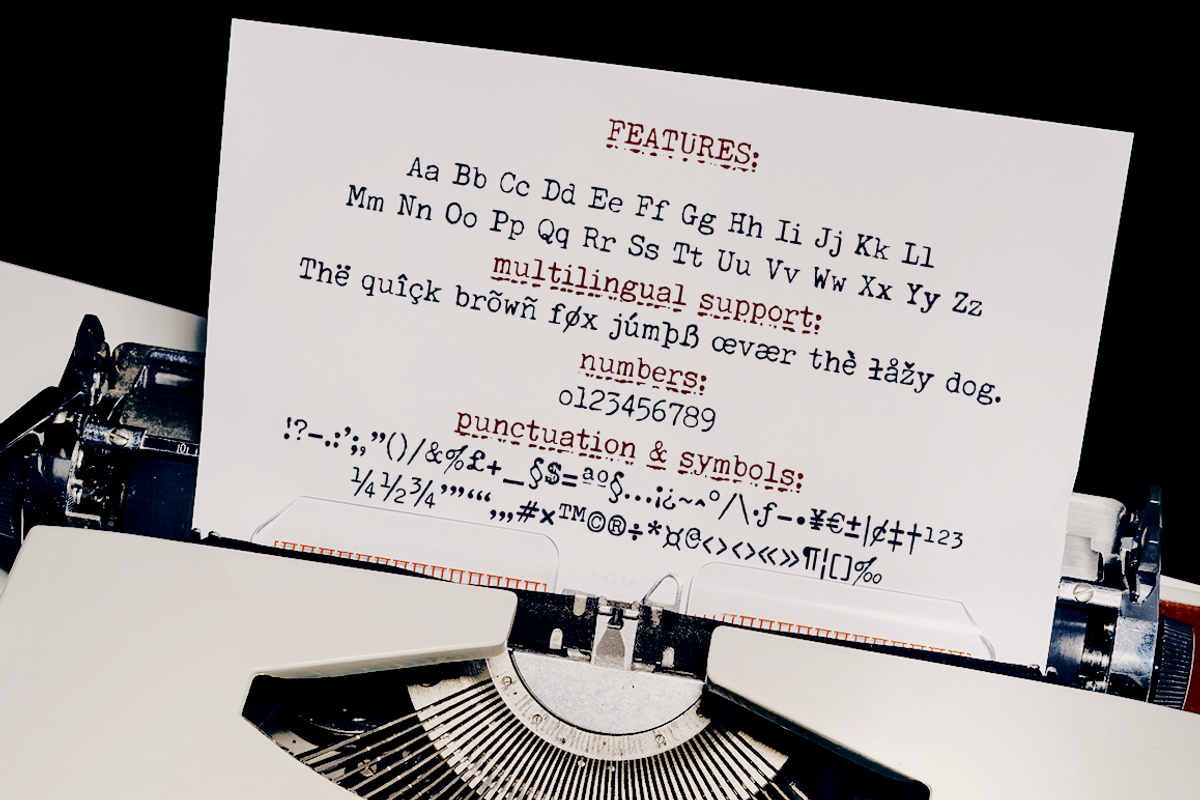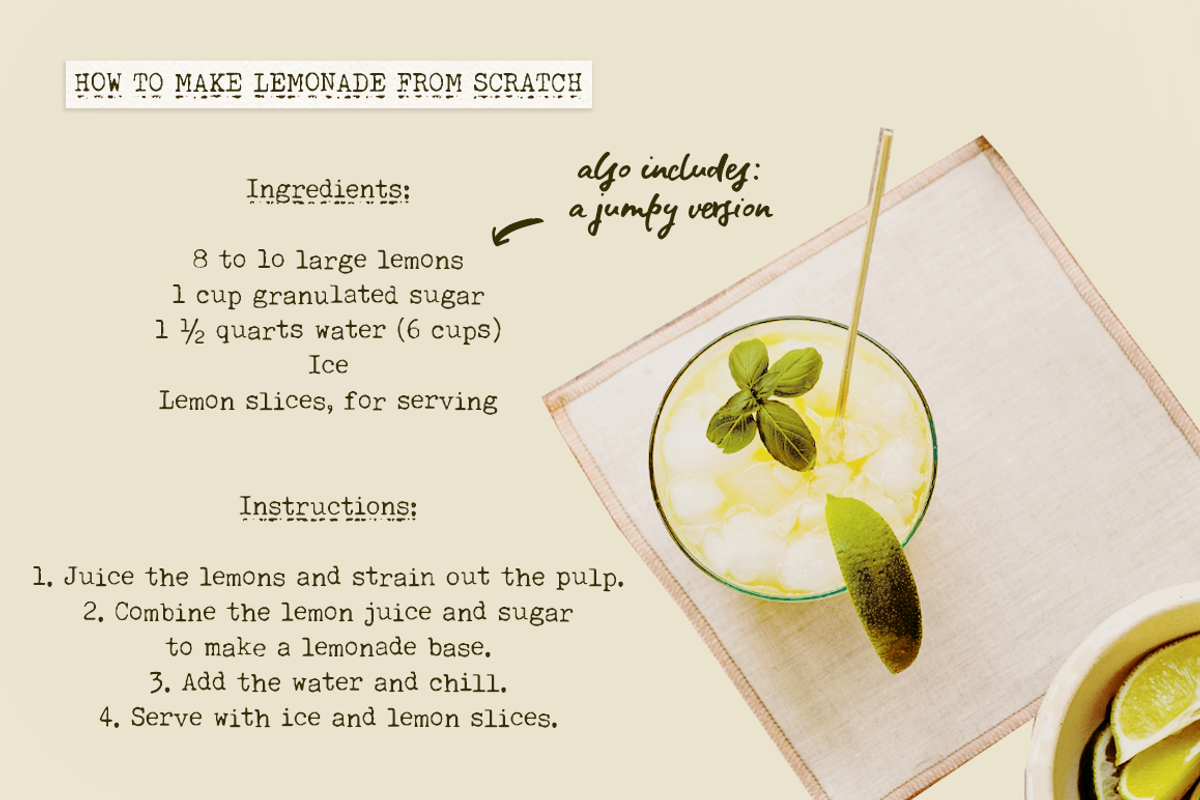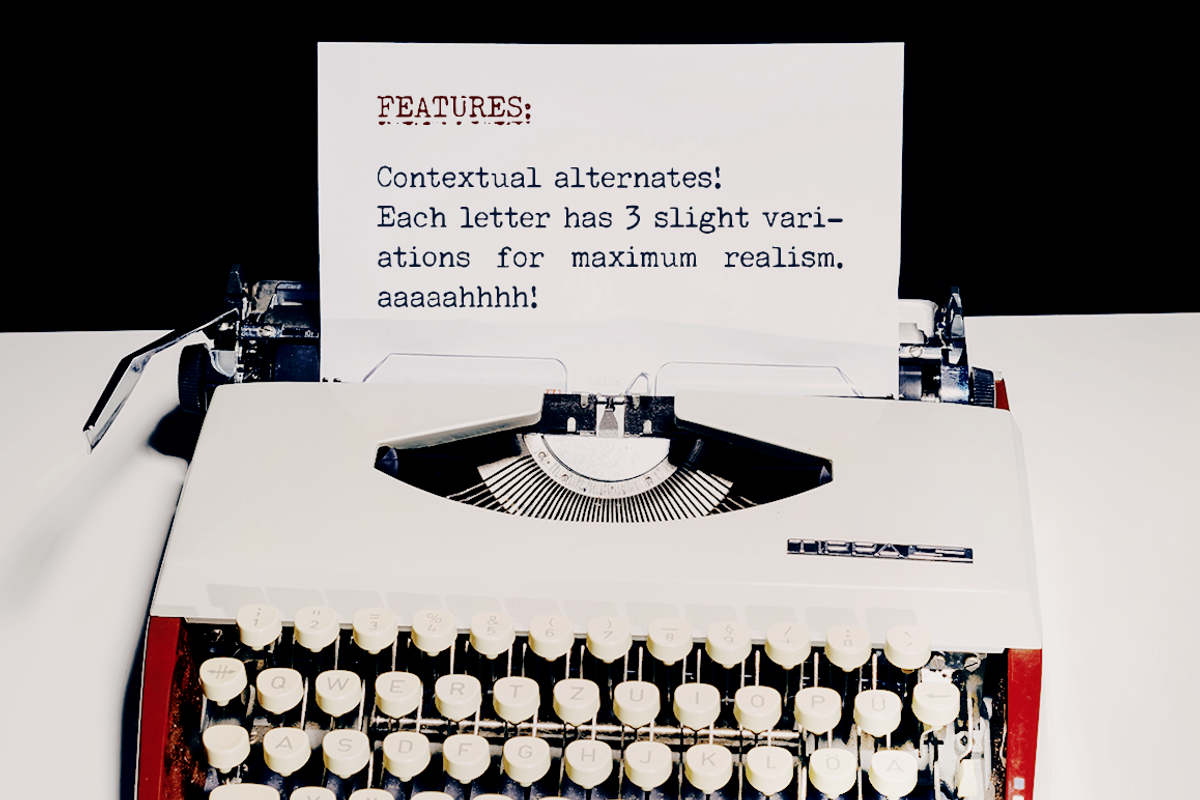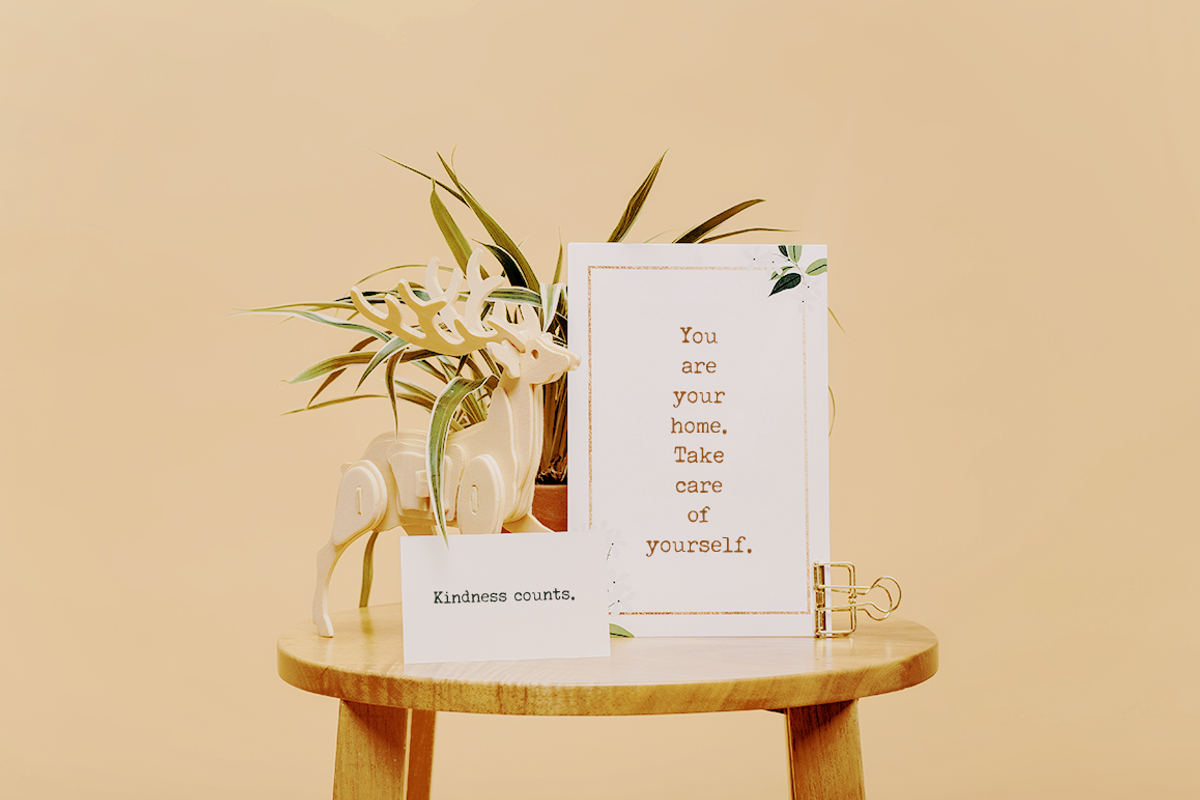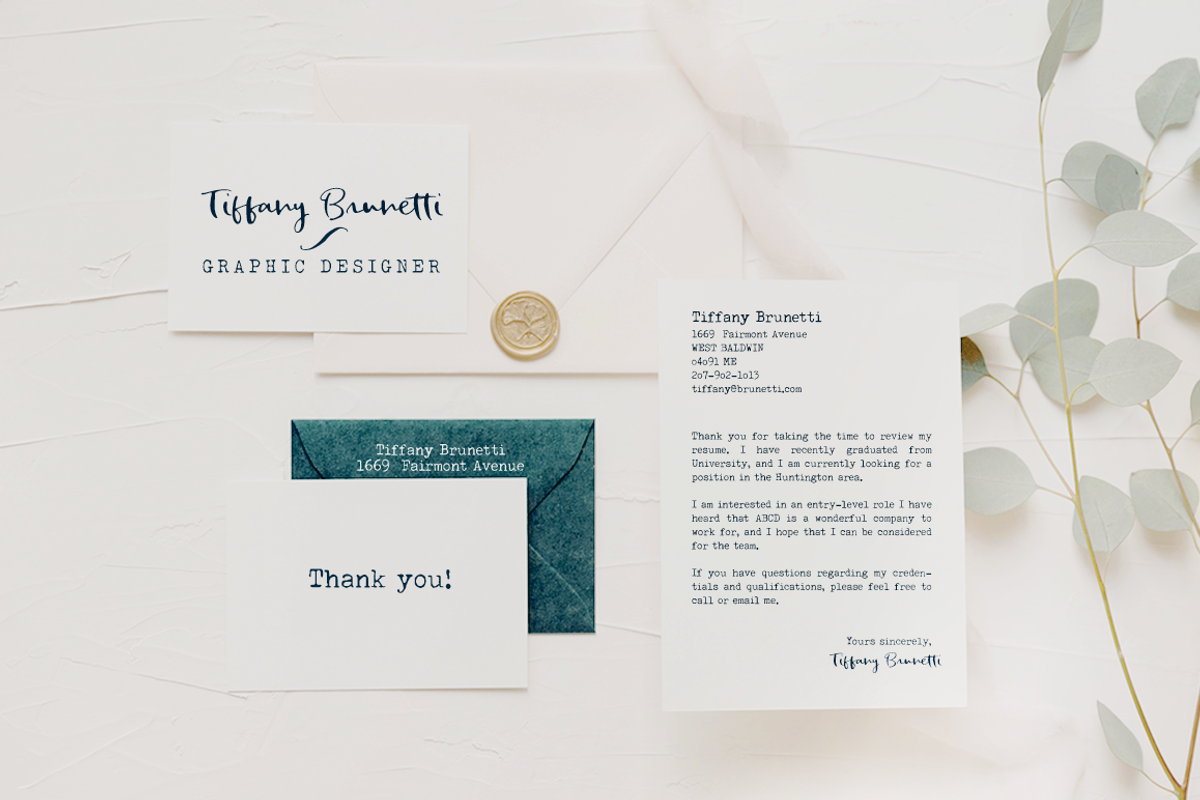
Secretary Typewriter & Texture pack
This is a bundle of two products: a timeless typewriter font and a set of vintage textures and stamps. Plus a little bonus!
Secretary Typewriter is a typewriter font in a lighter, softer weight that makes it perfect for more delicate designs. Use it in long or short texts, in digital collages, branding and packaging, social media posts, logotypes, etc.
Secretary Typewriter includes:
Contextual alternates. Each letter and number has 3 slight variations that appear "randomly" for extra realism.
Underline version of the font. For a grungier look.
New! Jumpy version of the font, based on contextual alternates.